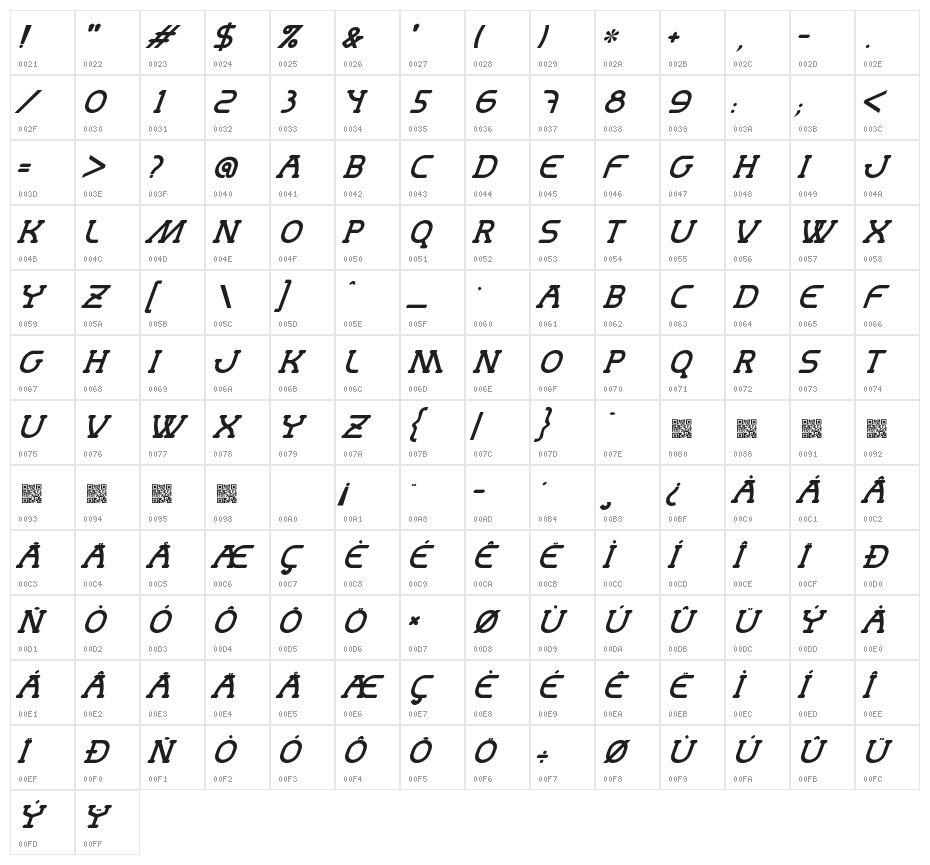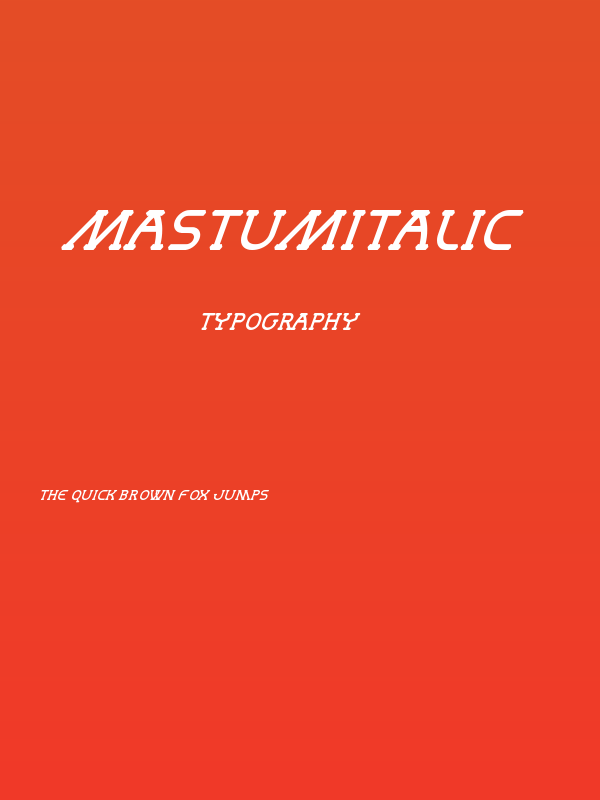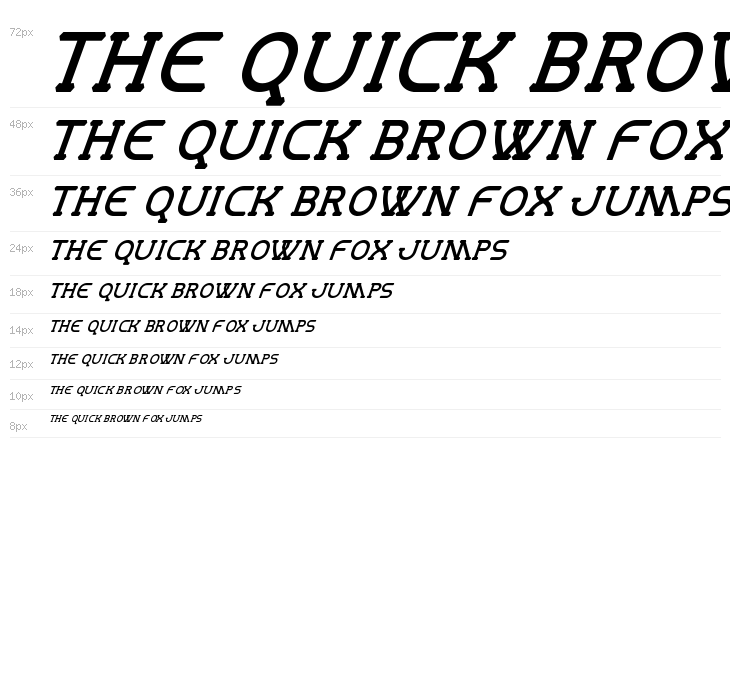
MastumItalic Font
MastumItalic Description
This font features a dynamic and energetic style with a distinct italic slant, giving it a sense of motion and fluidity. The characters are bold and slightly condensed, with a consistent stroke width that maintains readability while adding a touch of elegance. The uppercase and lowercase letters are well-balanced, and the numerals are clear and straightforward. Special characters are designed to complement the overall aesthetic, making this font versatile for various design needs. Its modern appeal is suitable for projects that require a contemporary and stylish look.
| Proposed Projects | Ideal for branding, advertising, posters, and digital media where a modern and energetic look is desired. |